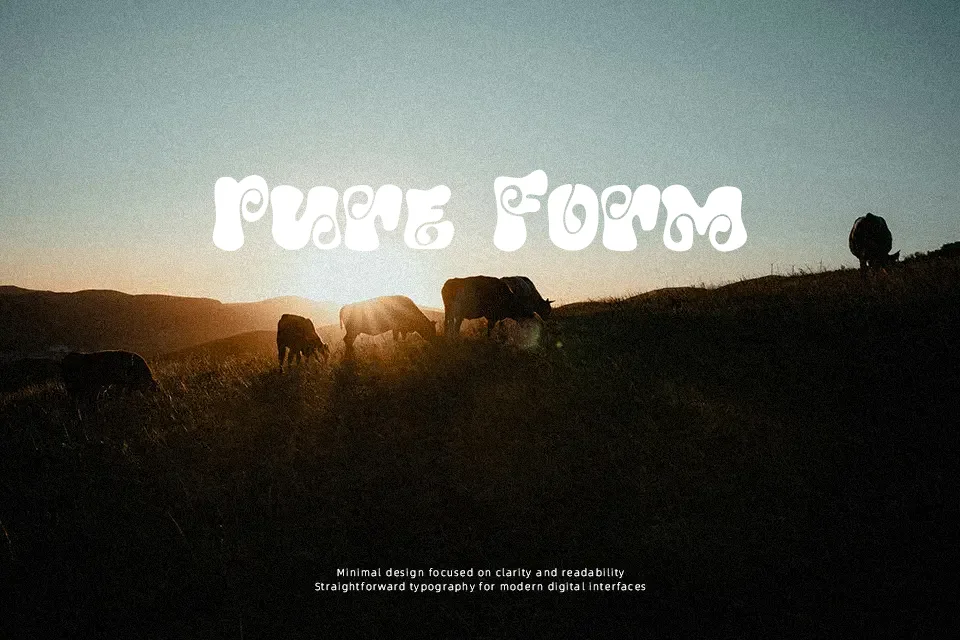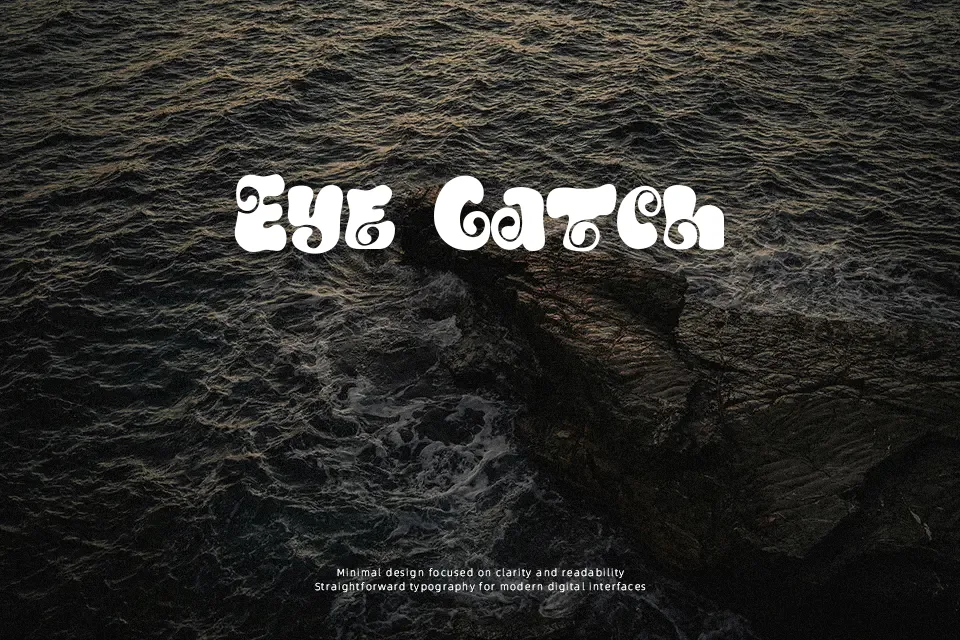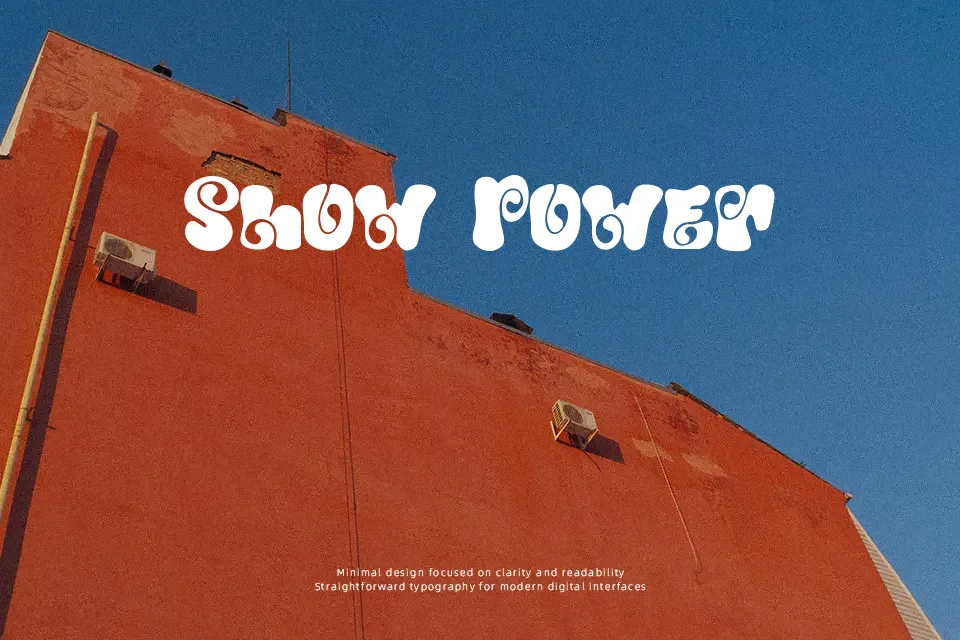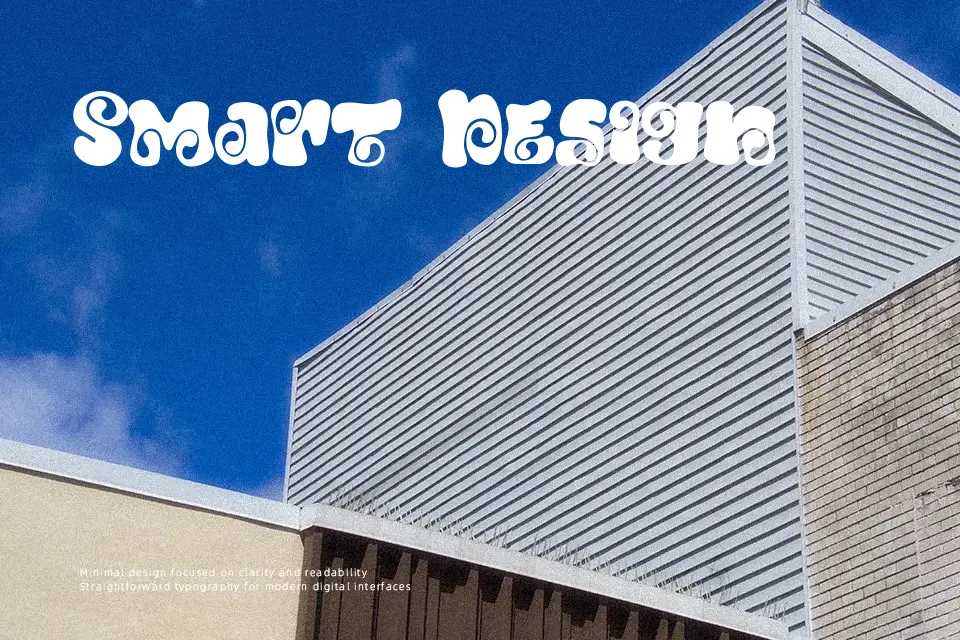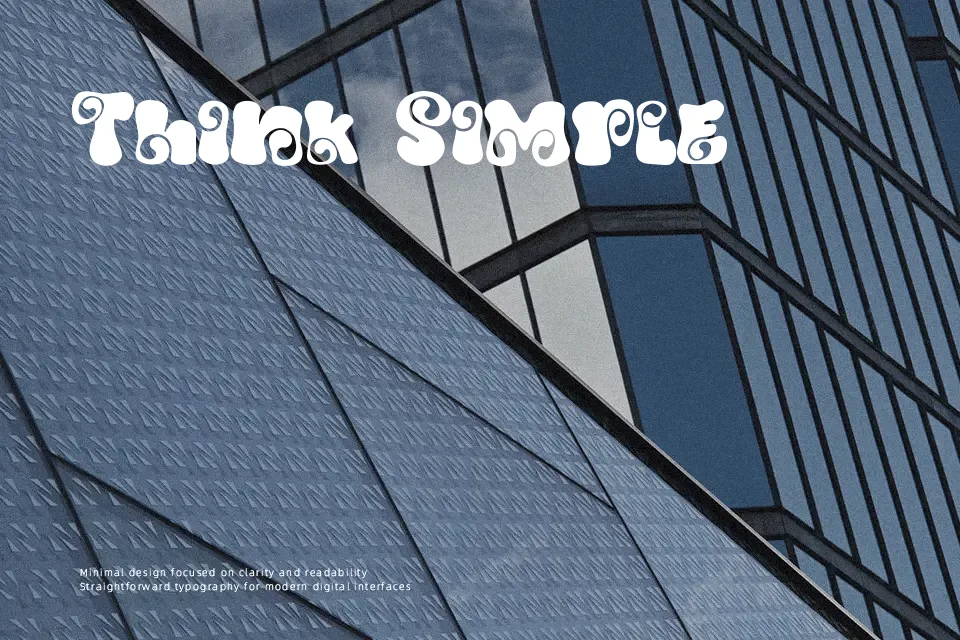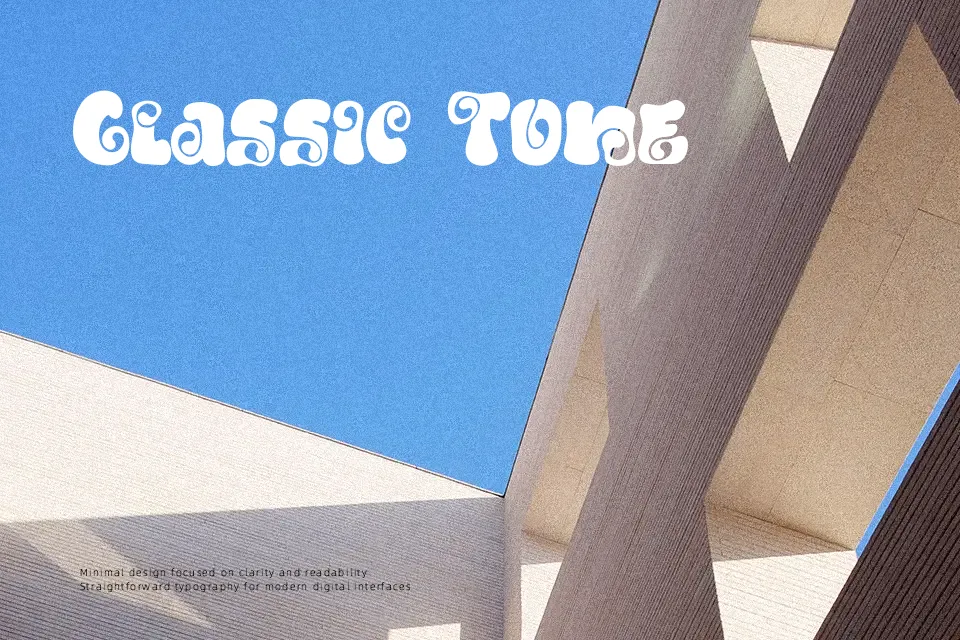
Tums Twirl Font
Tums Twirl Font showcases exaggerated weight, compact spacing, and idiosyncratic spiral cuts embedded directly into each character’s core structure. Thick, swollen strokes dominate the alphabet, creating tight counter spaces and soft, rounded outer boundaries with virtually no stroke contrast. The resulting visual rhythm commands attention in large display applications, making the design well suited for children’s book titles, novelty food wrappers, and retro party banners. However, the dense geometry and rotational distortions significantly reduce comfort across continuous text, causing glyphs to blur together at smaller reading sizes. The typeface remains an impactful decorative asset when restricted to brief headline arrangements.
Best For: music festival posters, children’s book titles, playful product packaging, retro event banners
Not Ideal For: long paragraph text, small interface labels, dense editorial layouts, corporate documentation
Perfect for headline, kids, and packaging, with a bold and decorative style.